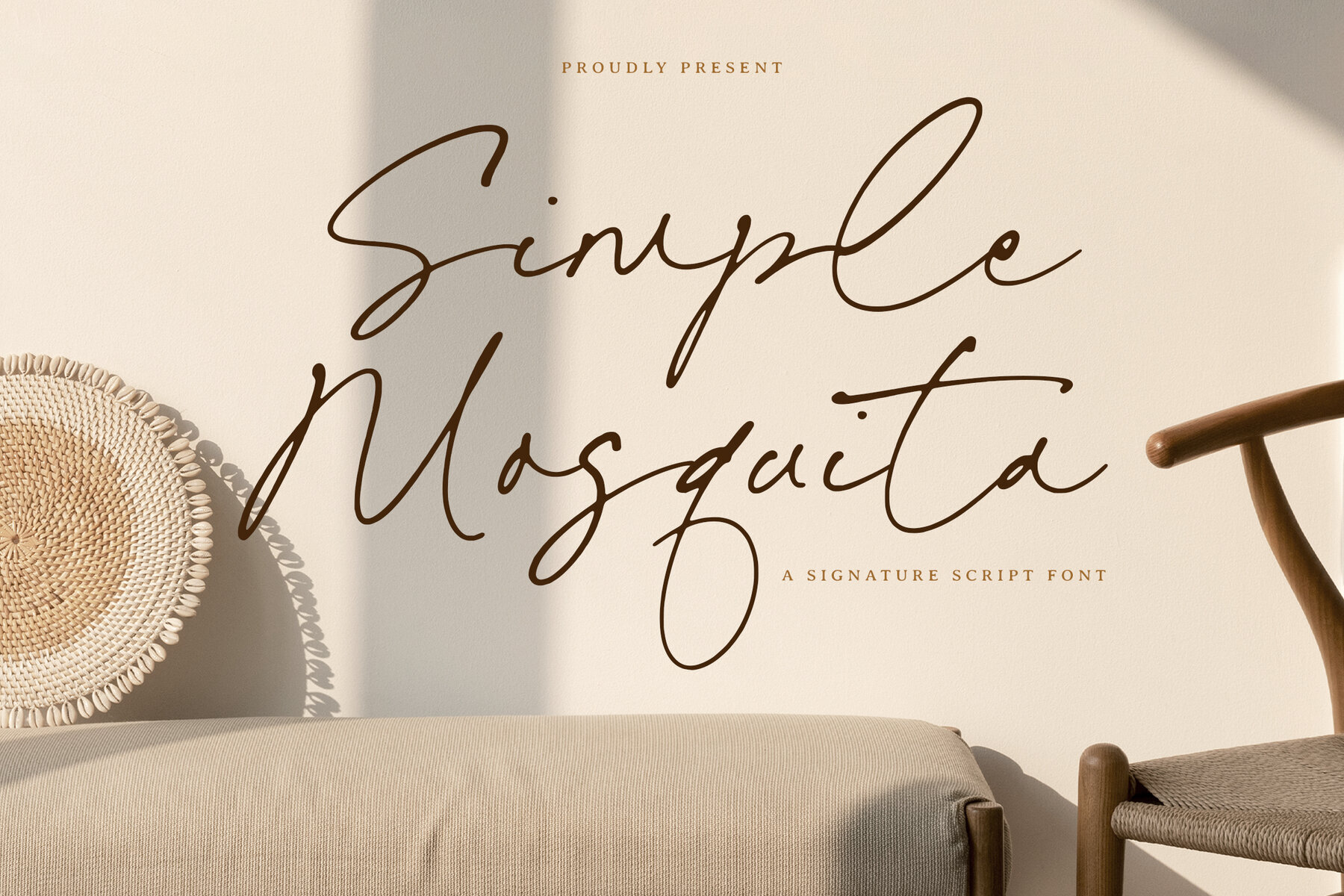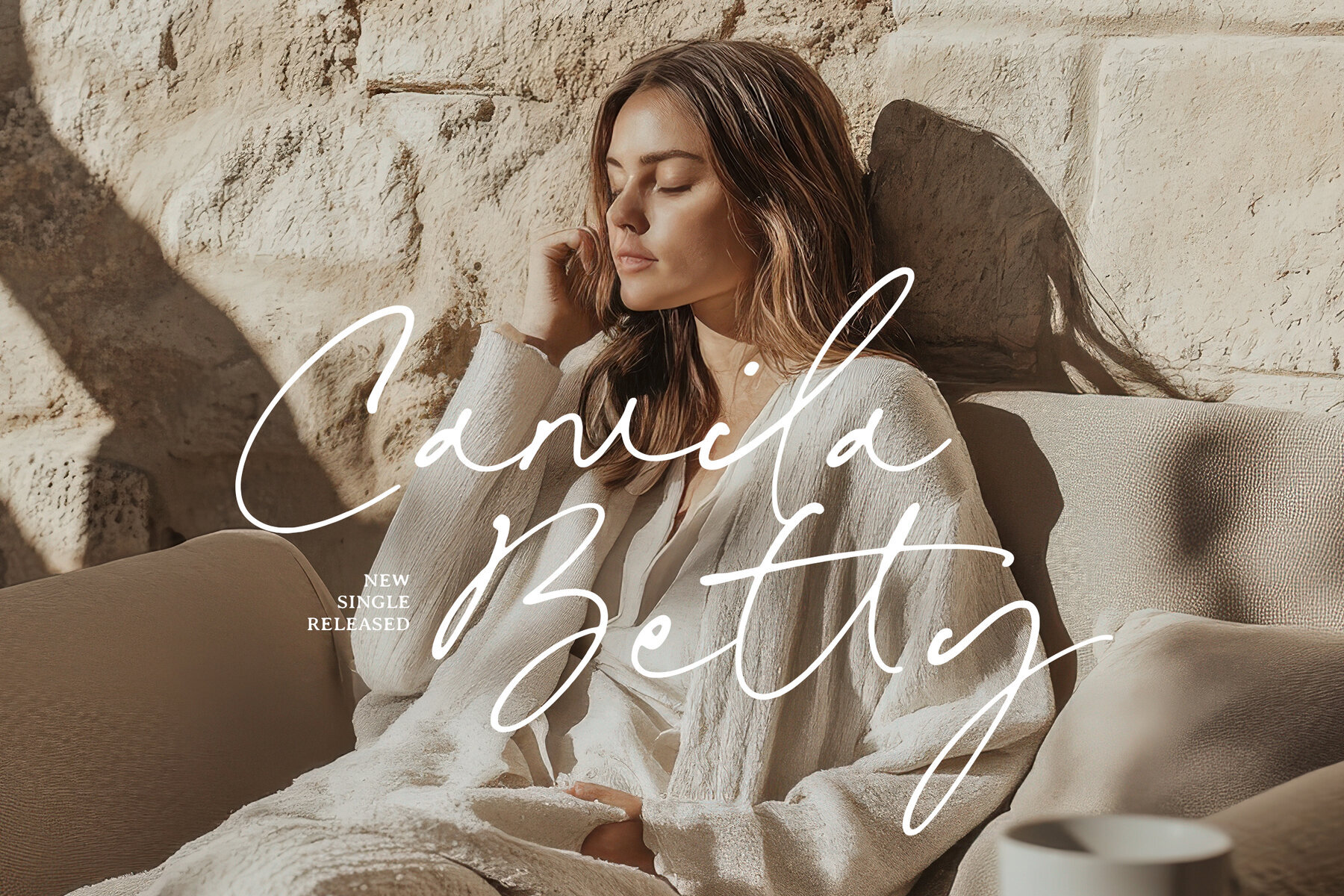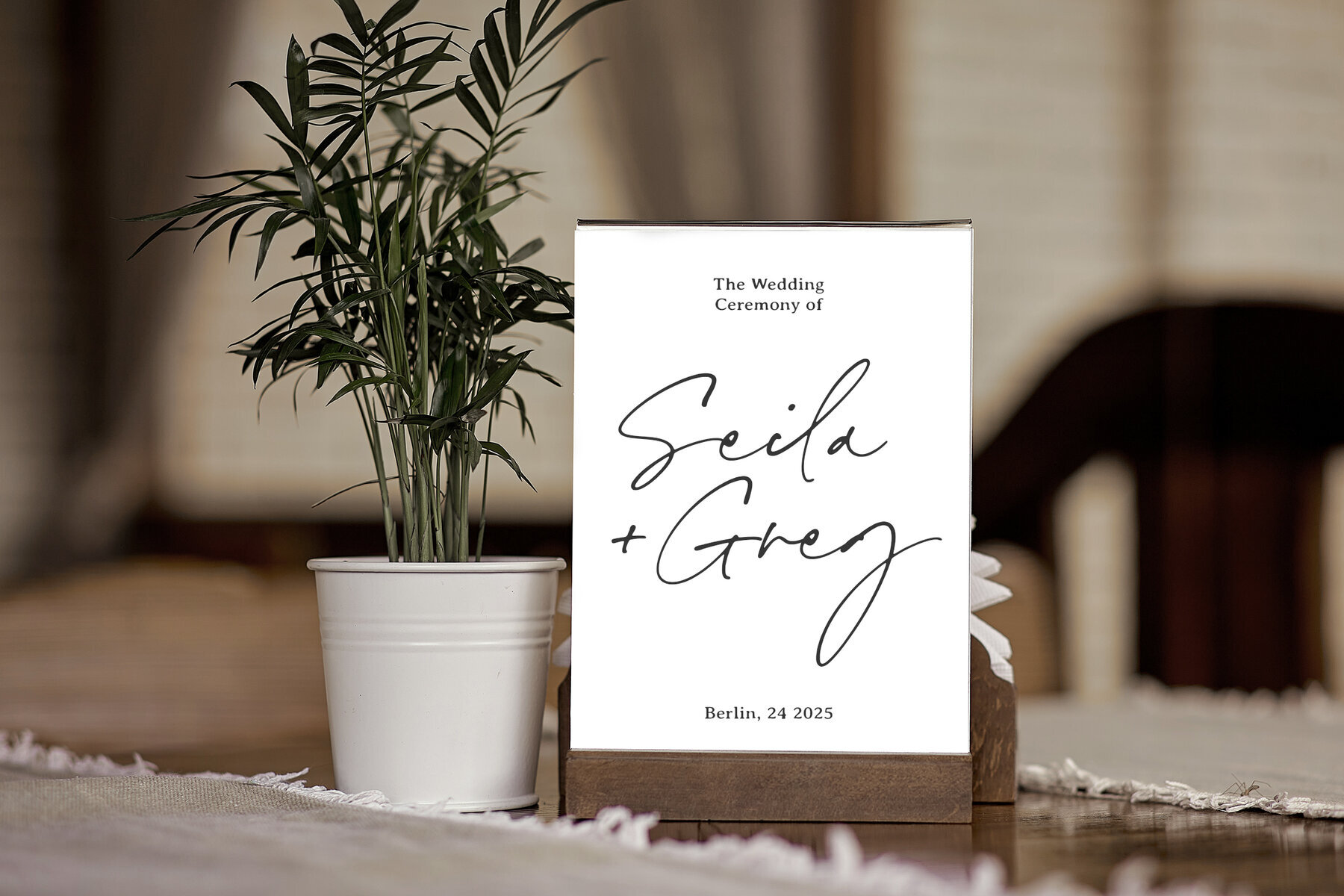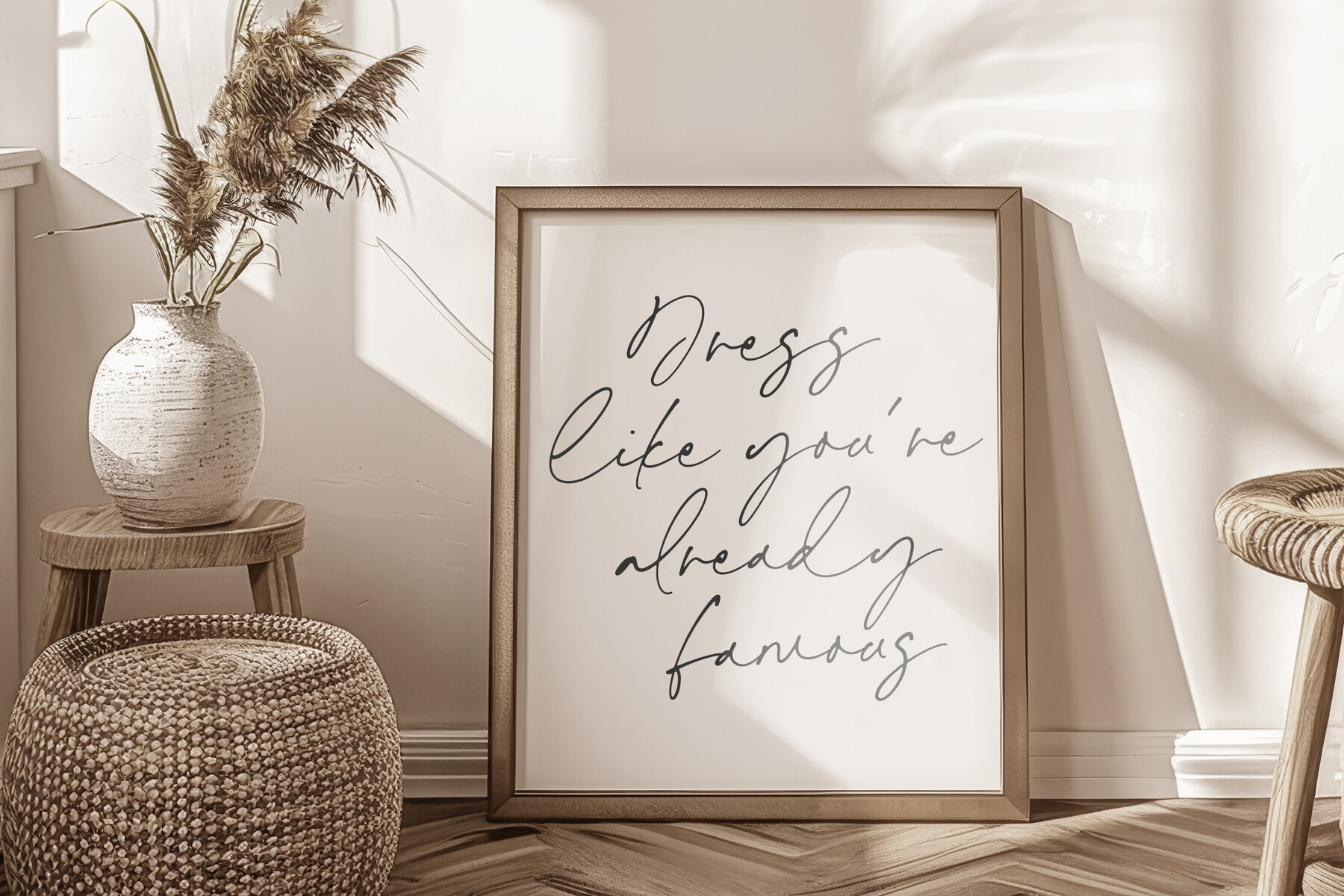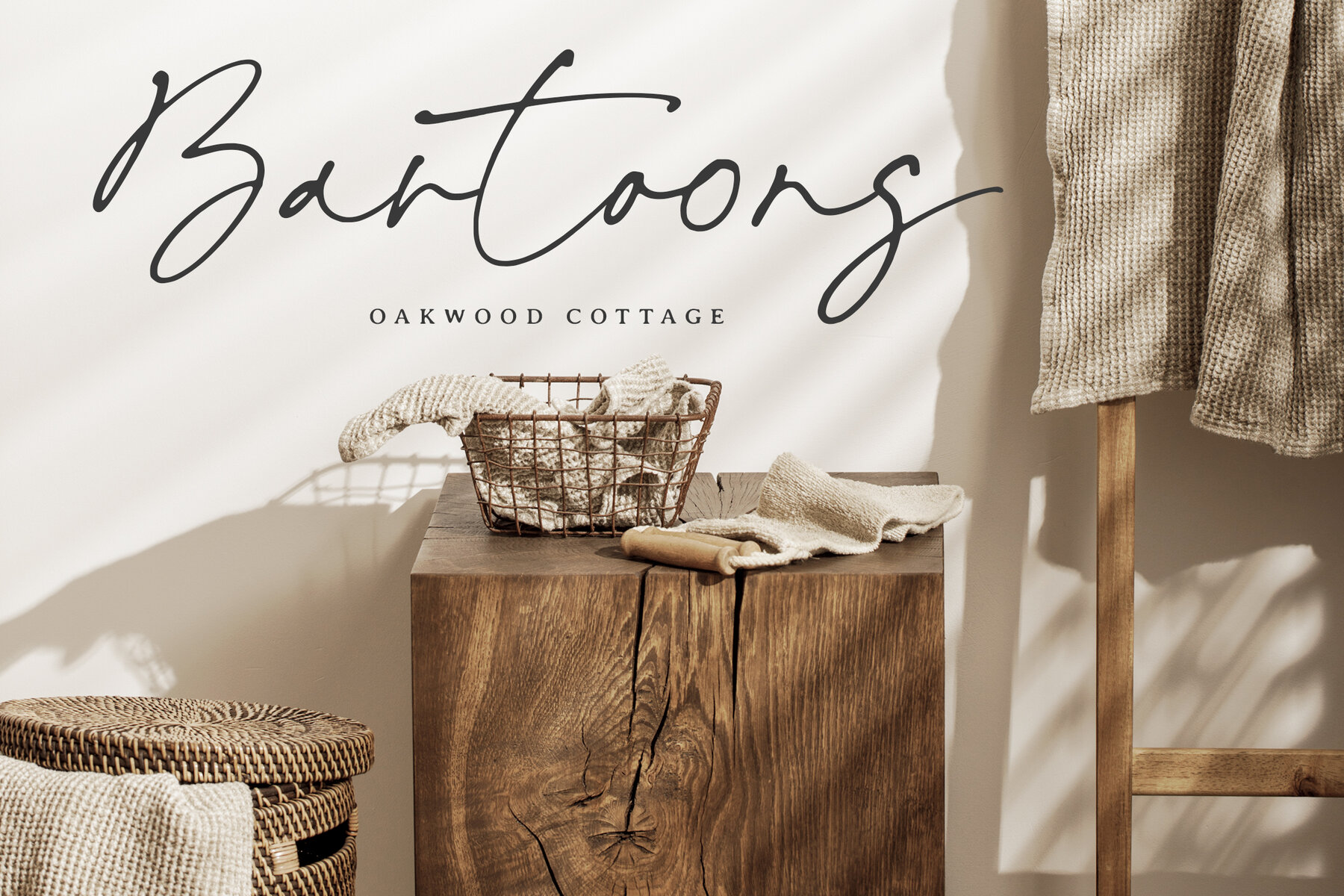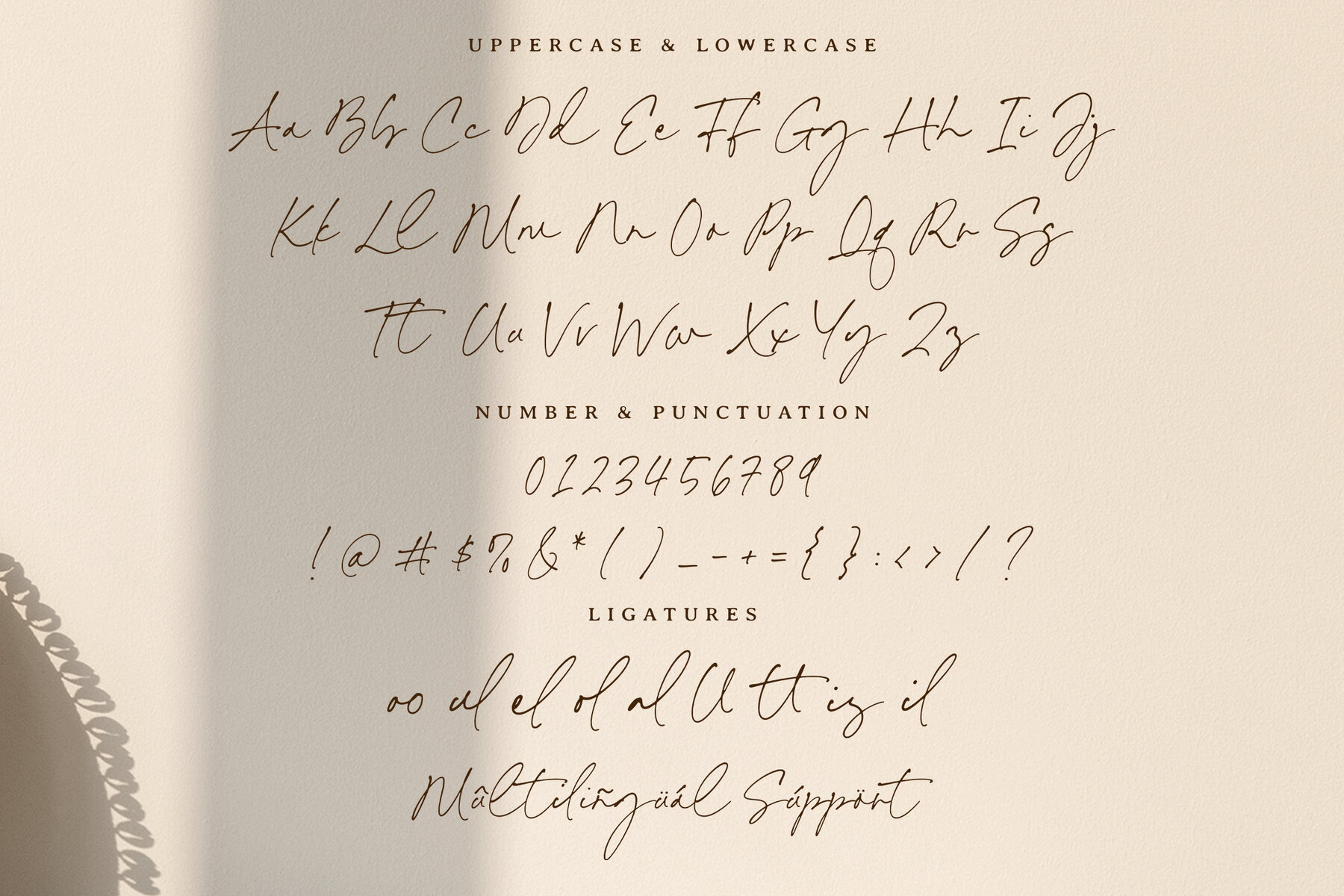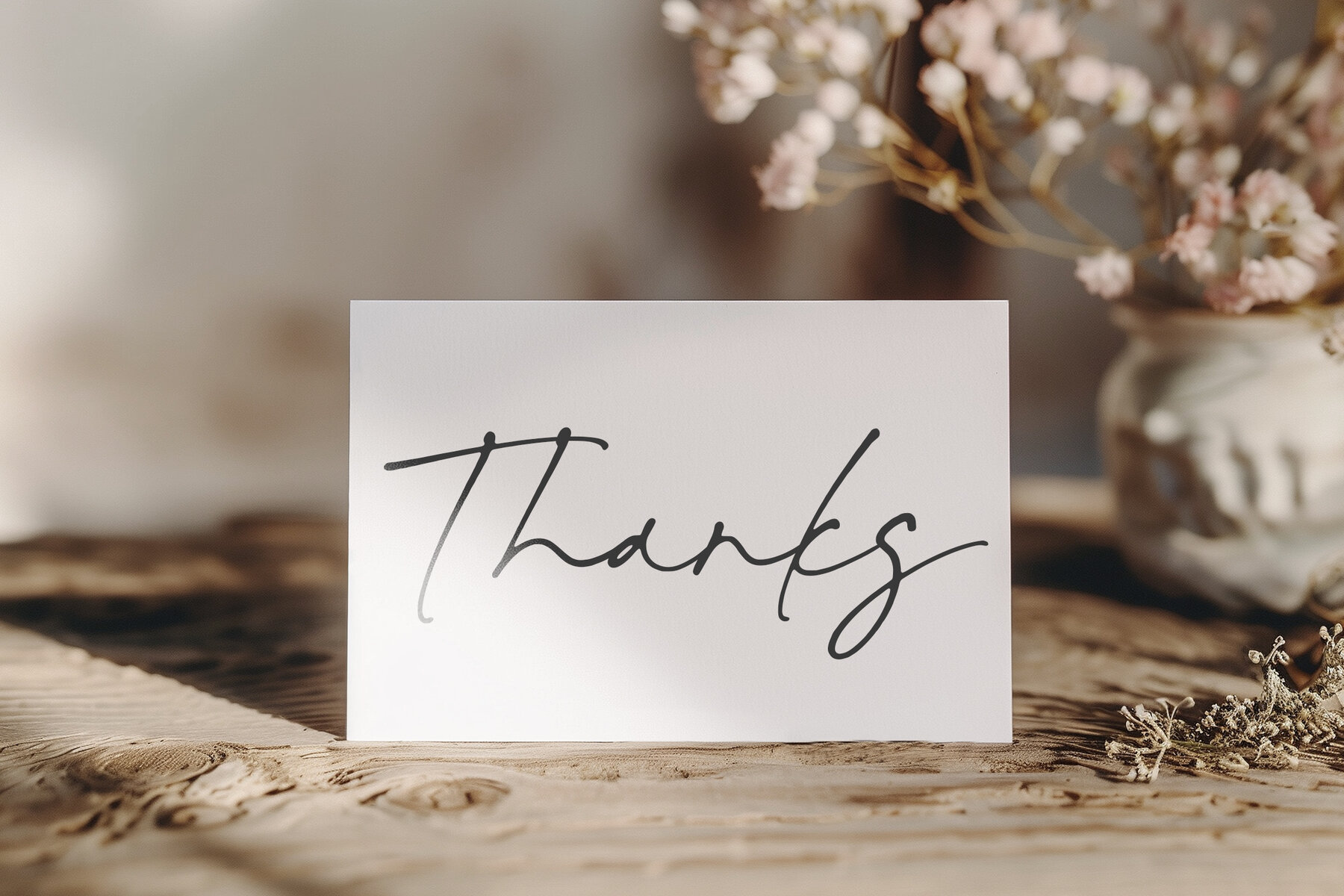
Simple Mosquita Font
Simple Mosquita
Simple Mosquita is a sophisticated signature script font characterized by graceful ligatures and fluid strokes. This refined typeface adds an elegant touch to a variety of design projects, including invitations, branding materials, and personal stationery. Its seamless handwritten appearance provides a blend of sophistication and warmth, ensuring each word stands out uniquely.
The font's charming style delivers a perfect balance between artistic flair and classy presentation, making it ideal for designers who wish to infuse their work with a touch of artistry. With its ability to create a distinct and inviting visual appeal, Simple Mosquita is excellent for projects aiming to convey a sense of individual style and elegance.